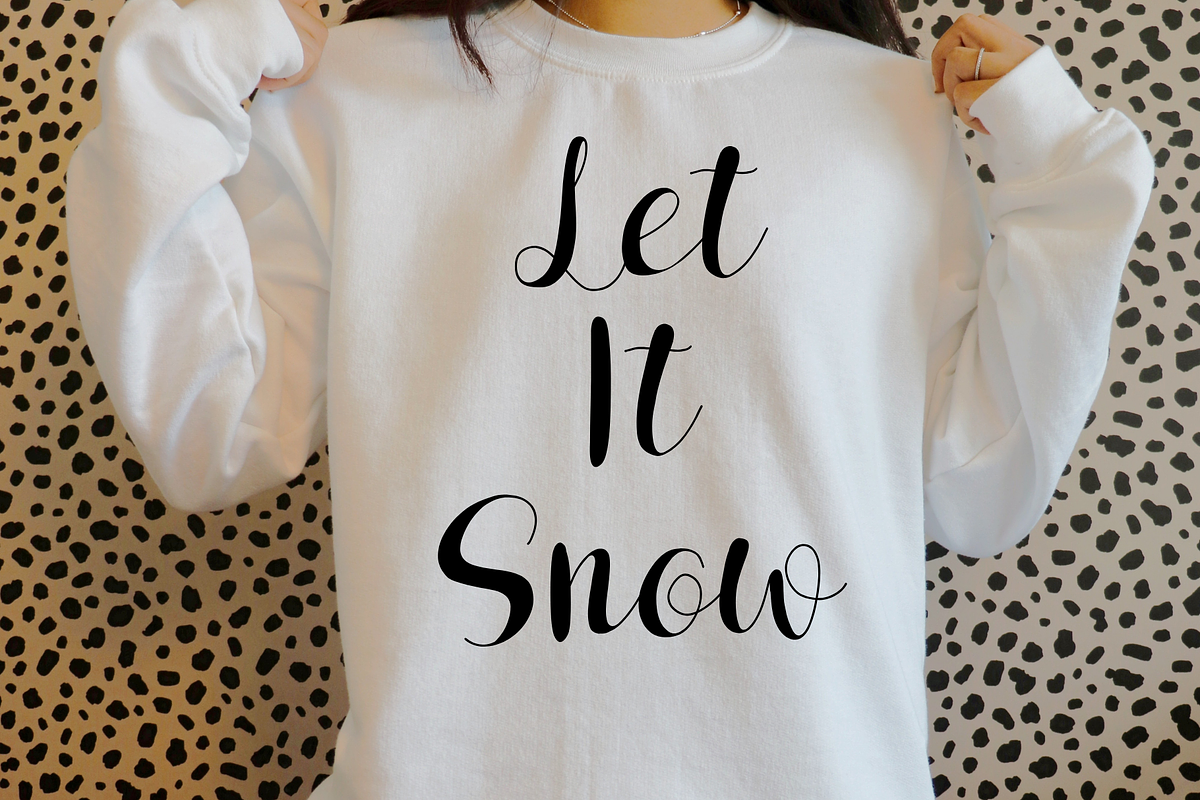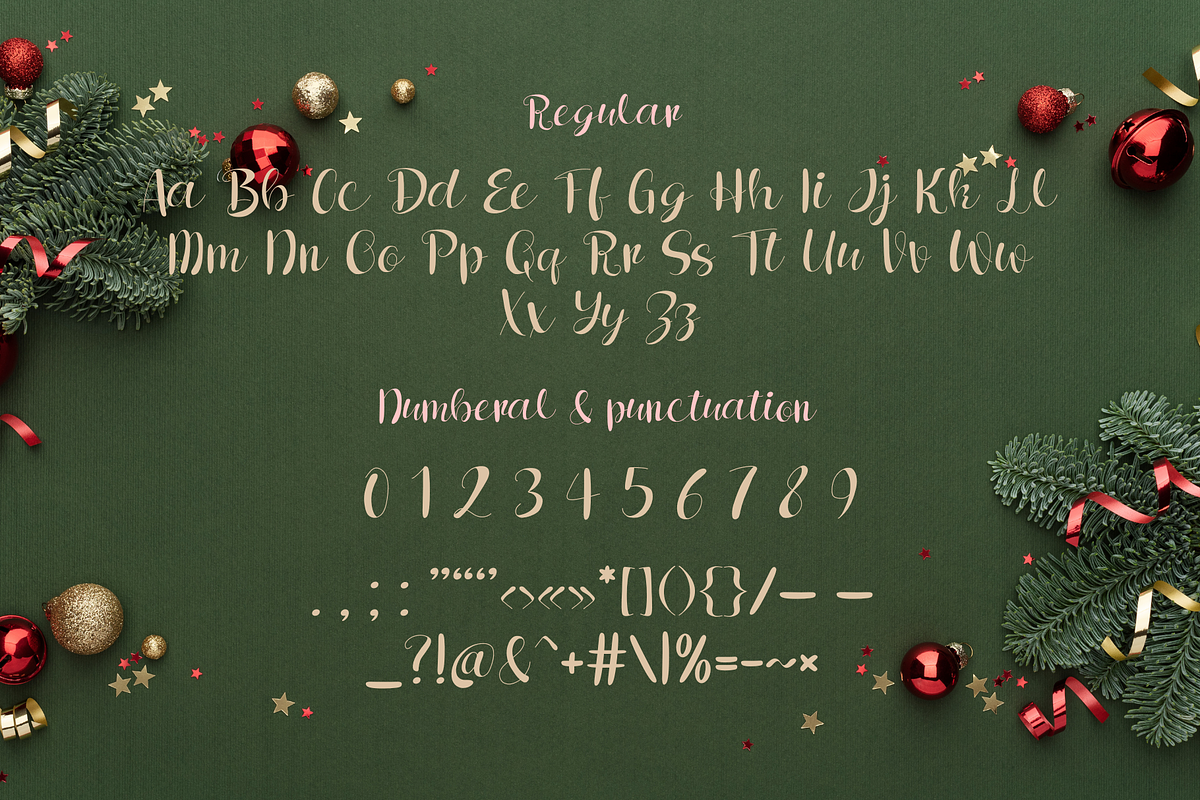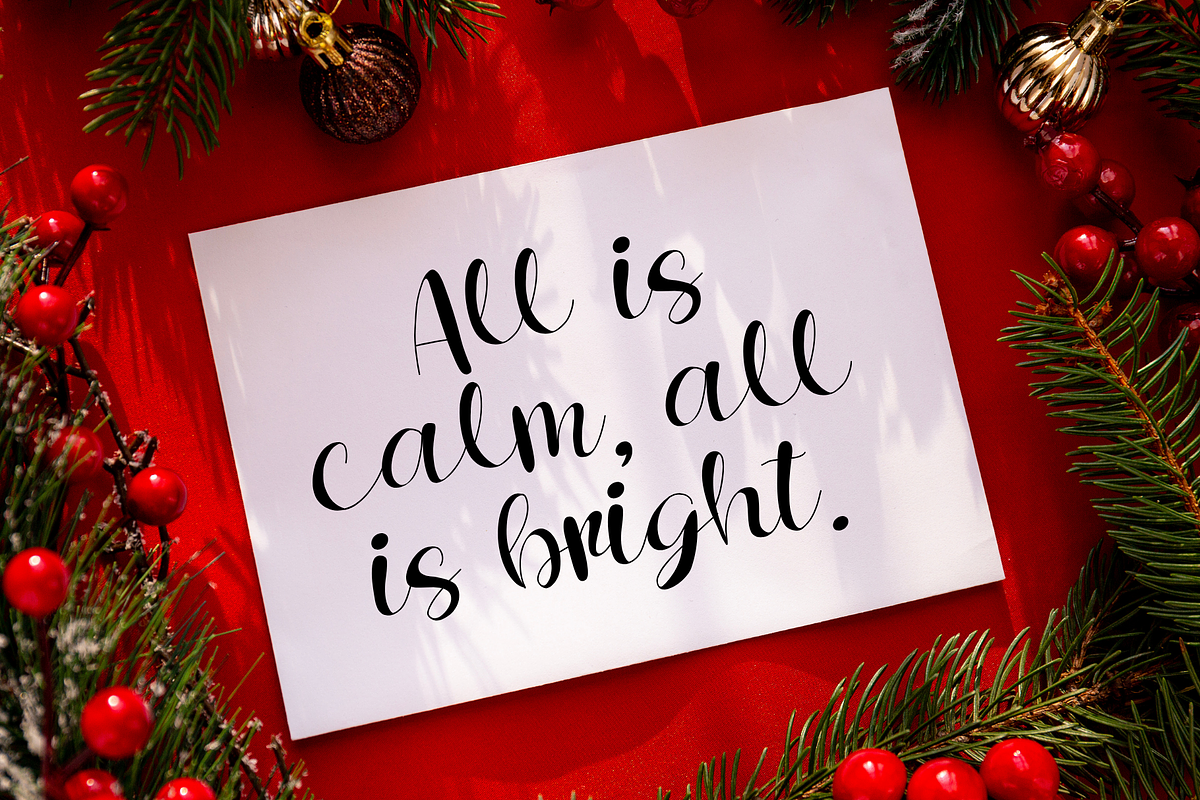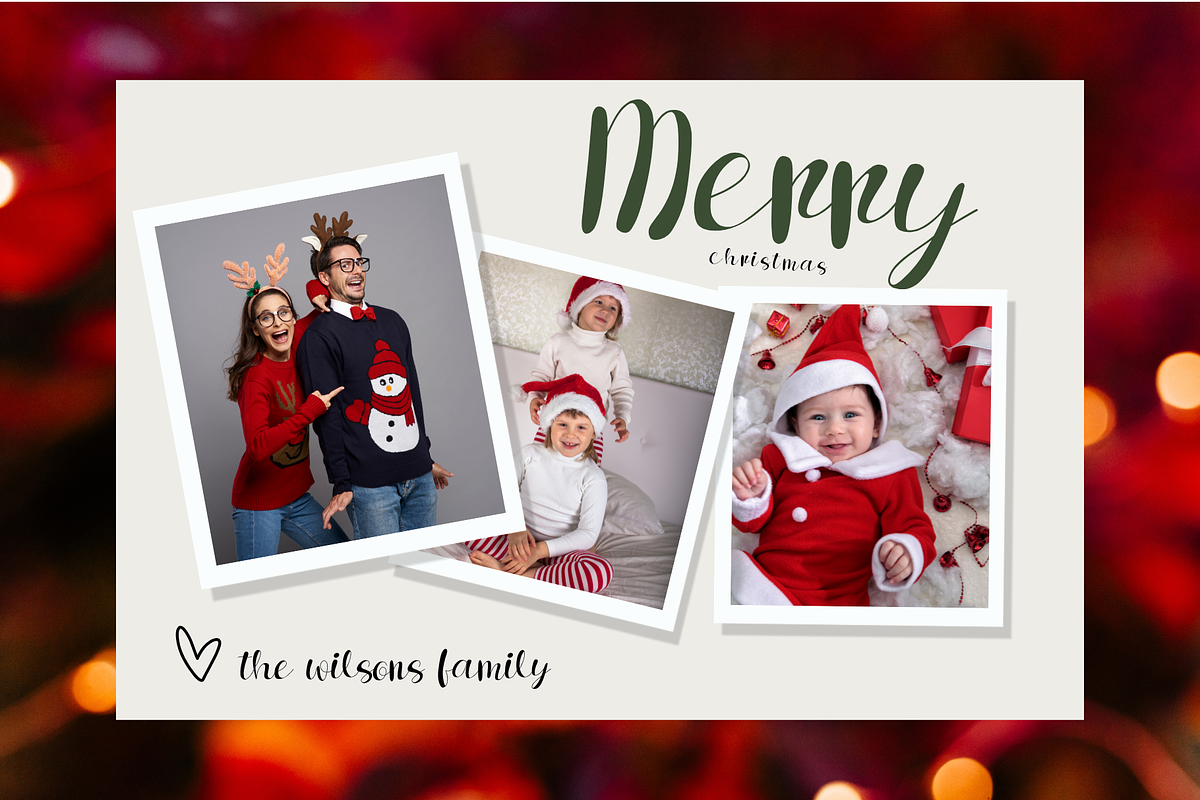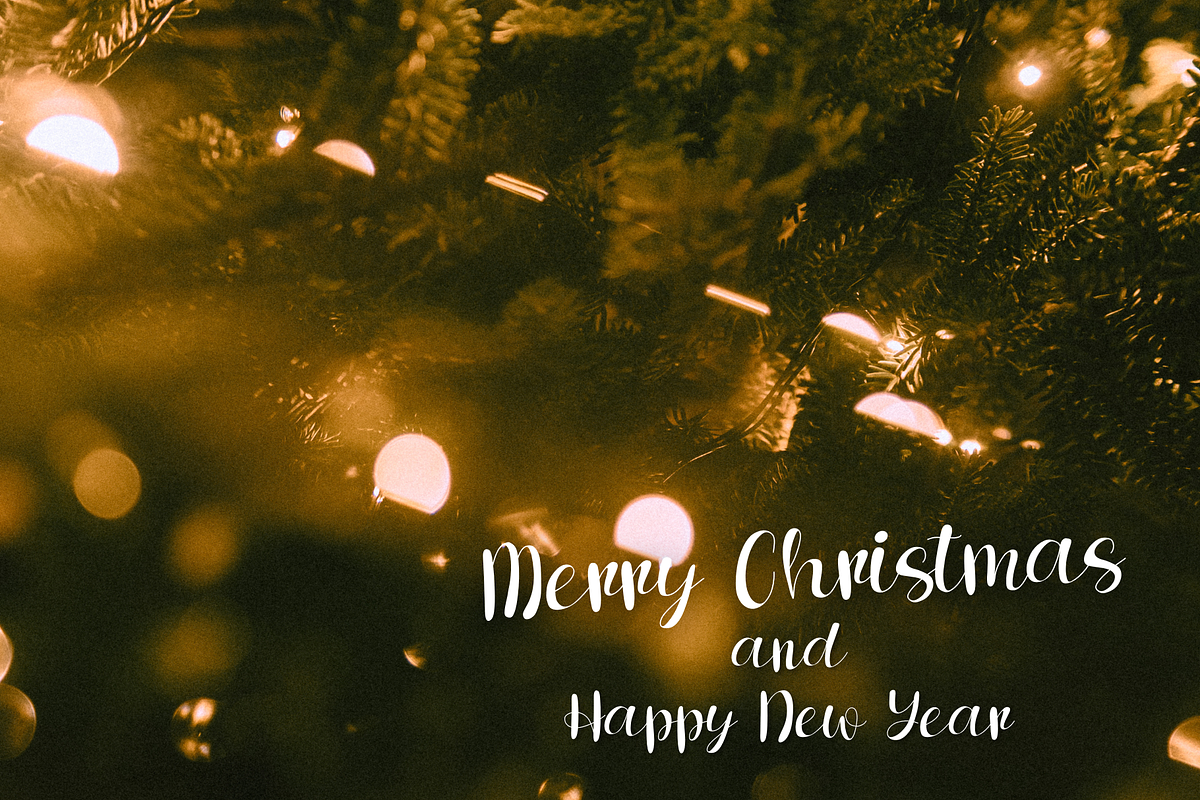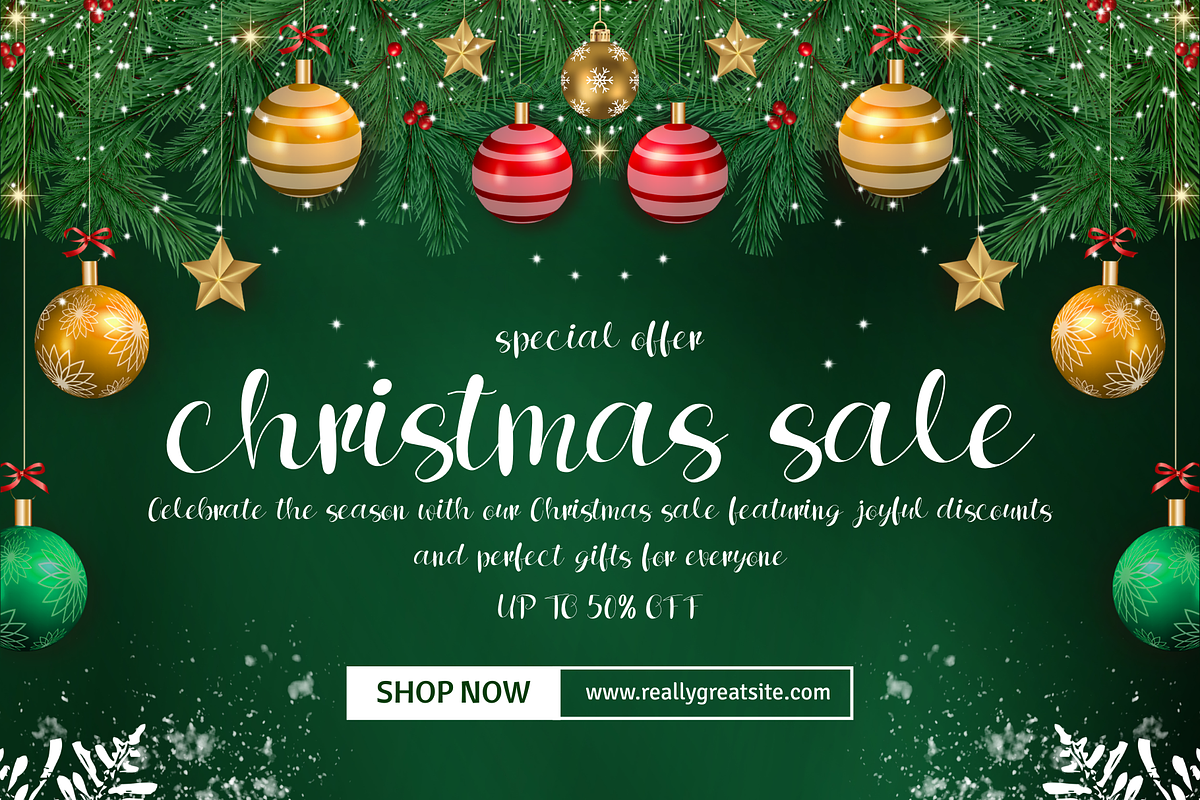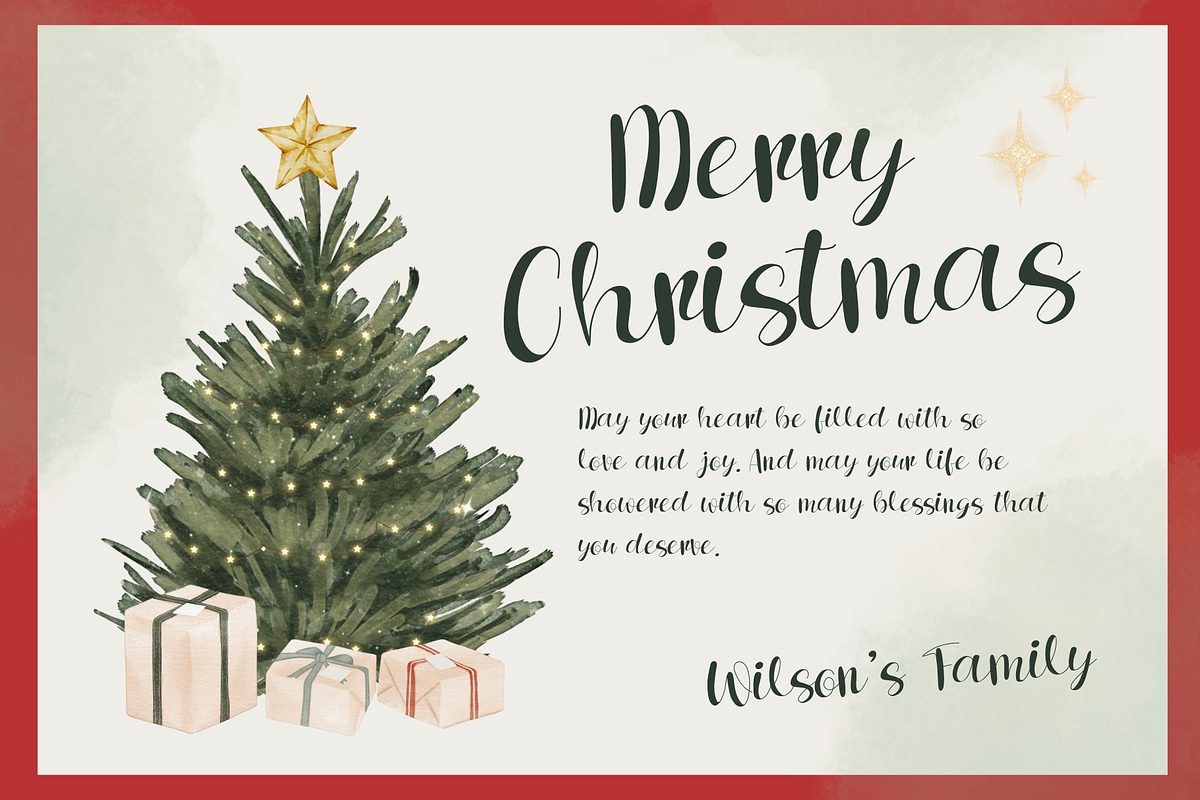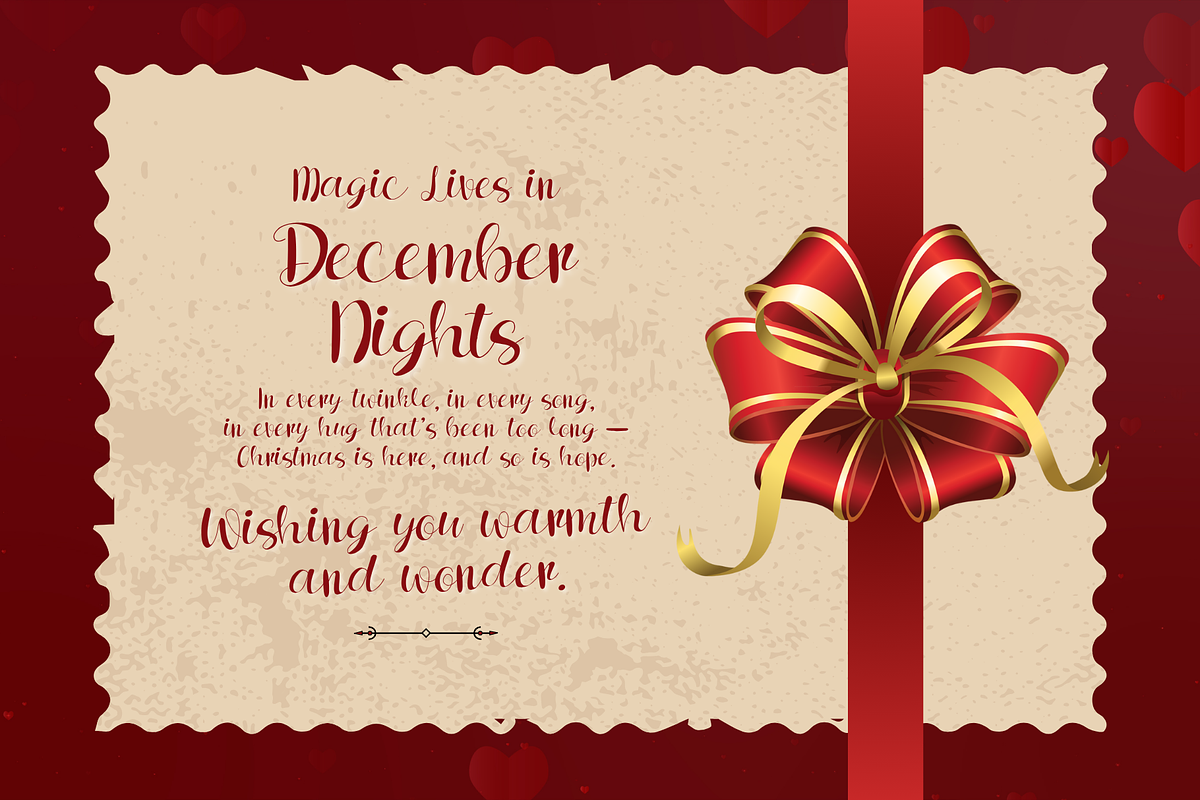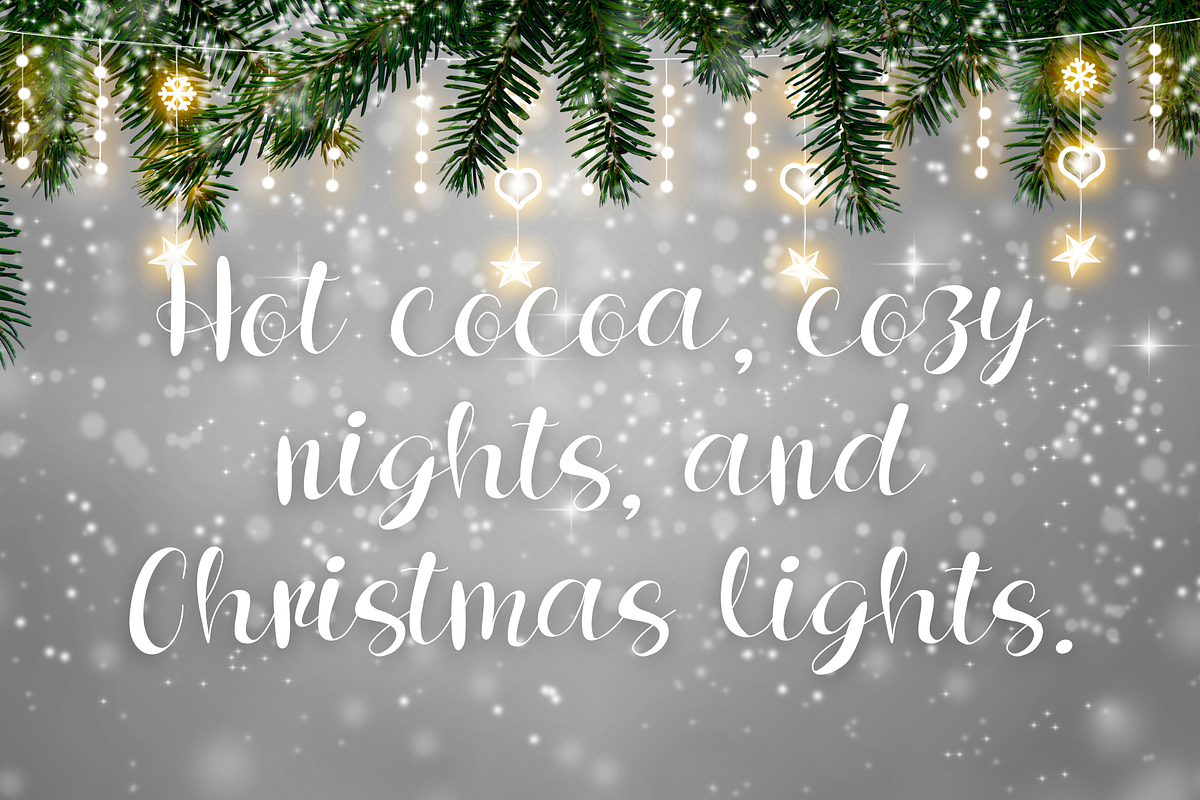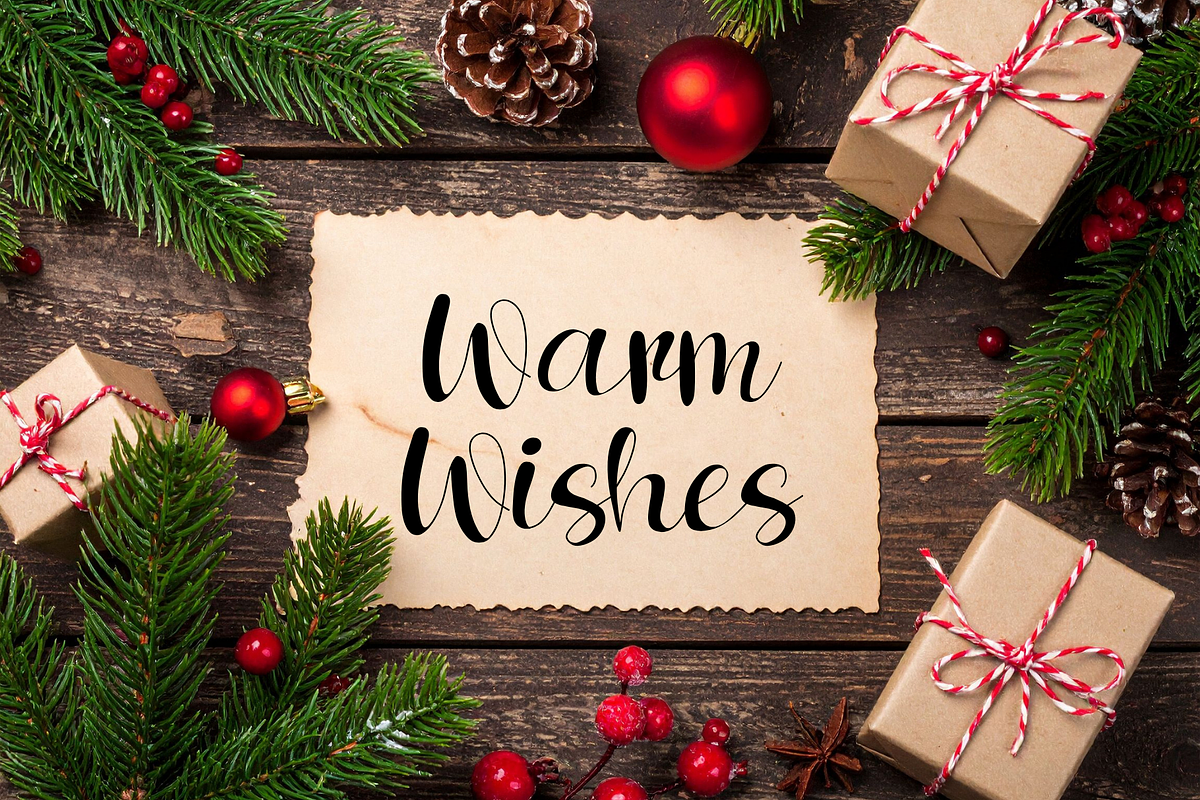
Frosty Christmas handwritten script
Celebrate the season with Frosty Christmas, a charming handwritten script font designed to bring warmth, cheer, and festive elegance to your holiday projects. Its flowing strokes and playful curves capture the true spirit of Christmas, making every design feel magical and inviting.